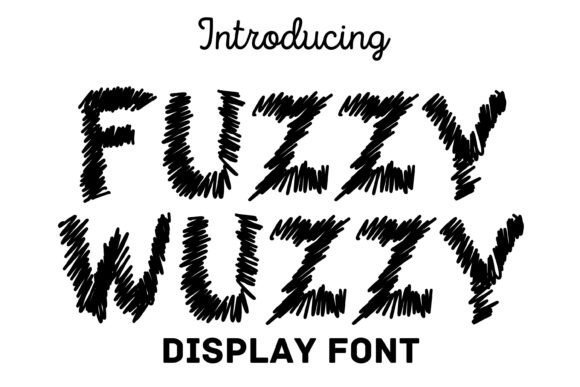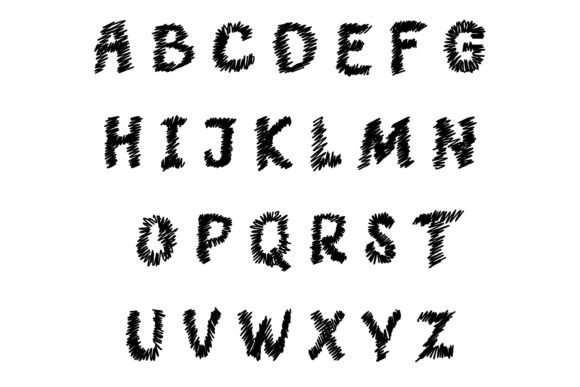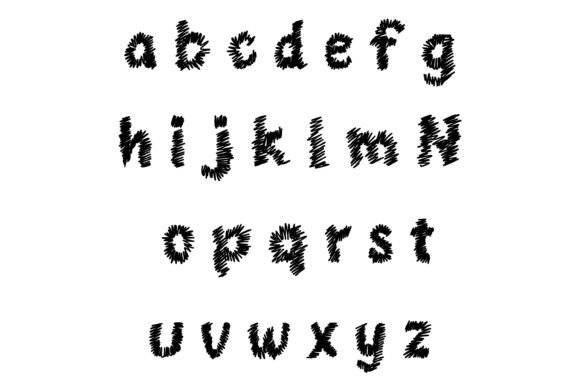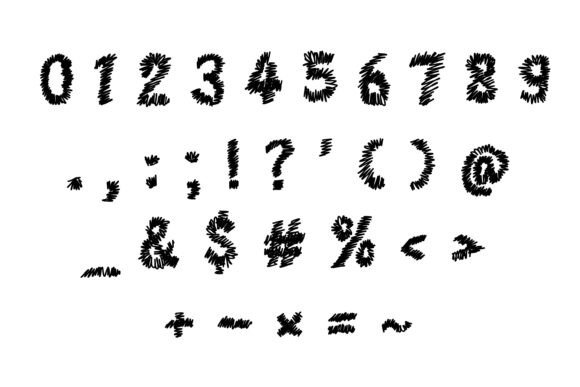
Fuzzy Wuzzy Font: A Bold Scribble Display Font for Edgy Designs
About the Fuzzy Wuzzy Font
Add a touch of class to your work with the Fuzzy Wuzzy Font, a truly exceptional typeface. Fuzzy Wuzzy is a one-of-a-kind display font with a raw, sketchy scribble texture that brings boldness and attitude to your designs. With its jagged, edgy feel and hand-drawn look, this font is perfect for t-shirts, posters, stickers, street-style merch, and alternative branding.
• ✒️ Scratchy scribble-style letters with bold, irregular texture
• 🔠 Includes uppercase and lowercase characters, numbers, and punctuation
• 🖤 Great for edgy apparel designs, zines, band posters, or cool DIY merch
• 🖍️ Perfect for handmade brands, grunge projects, or sketch-inspired layouts
• 🎨 Adds chaos, creativity, and attitude to any print or digital project
Fuzzy Wuzzy Font Usage Examples
Fuzzy Wuzzy Font Example